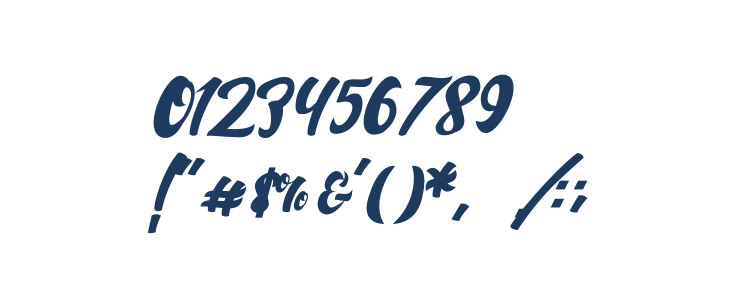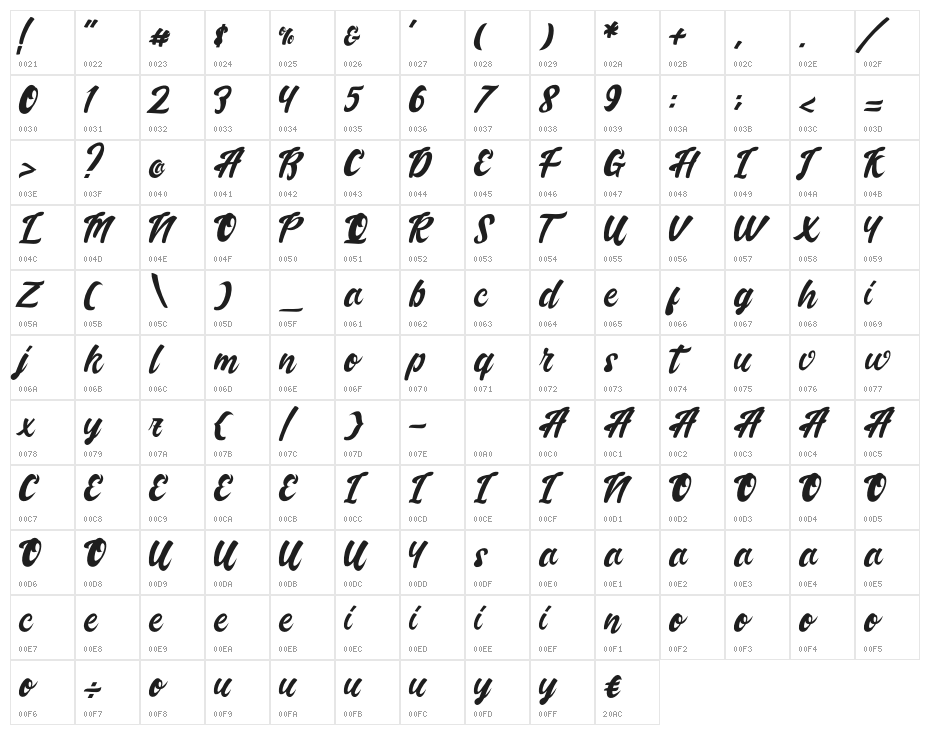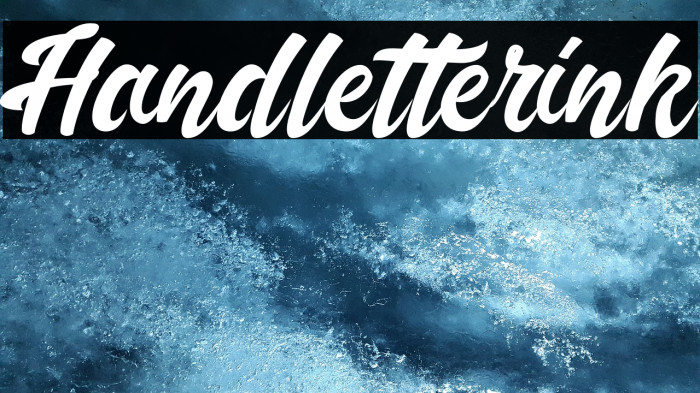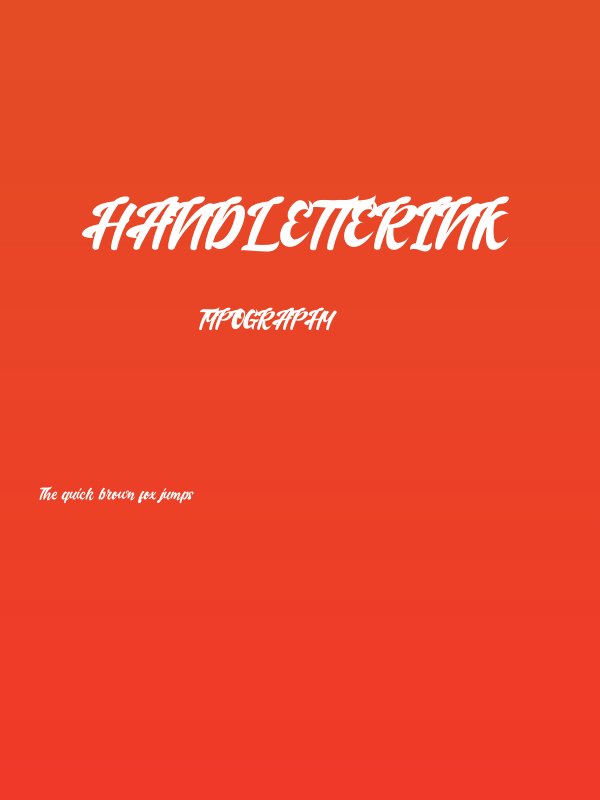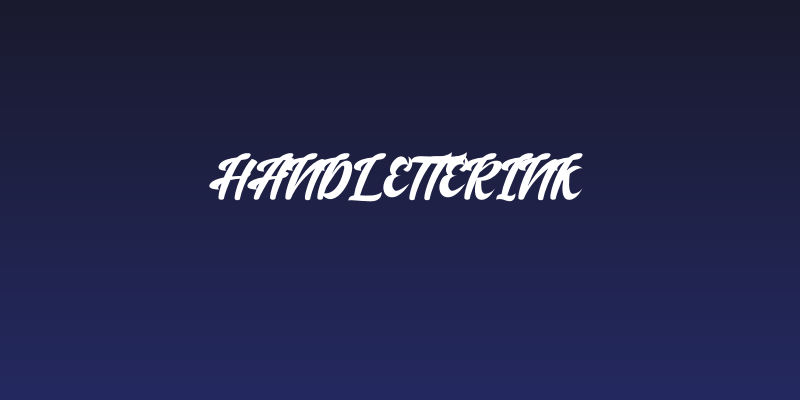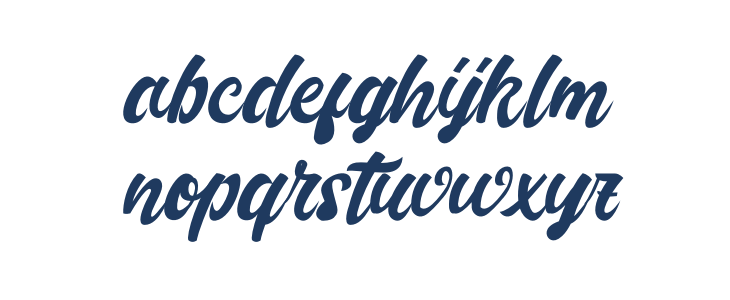
Handletterink Font
Handletterink Description
This font features a bold, cursive style with a strong emphasis on fluidity and movement. The letters are interconnected, creating a seamless flow that mimics natural handwriting. The strokes are thick and consistent, providing a robust and confident appearance. The uppercase letters are slightly larger and more pronounced, while the lowercase letters maintain a balanced and harmonious look. Numbers and special characters are designed to match the overall aesthetic, ensuring a cohesive visual experience. This font is ideal for projects that require a personal touch or a sense of elegance and sophistication.